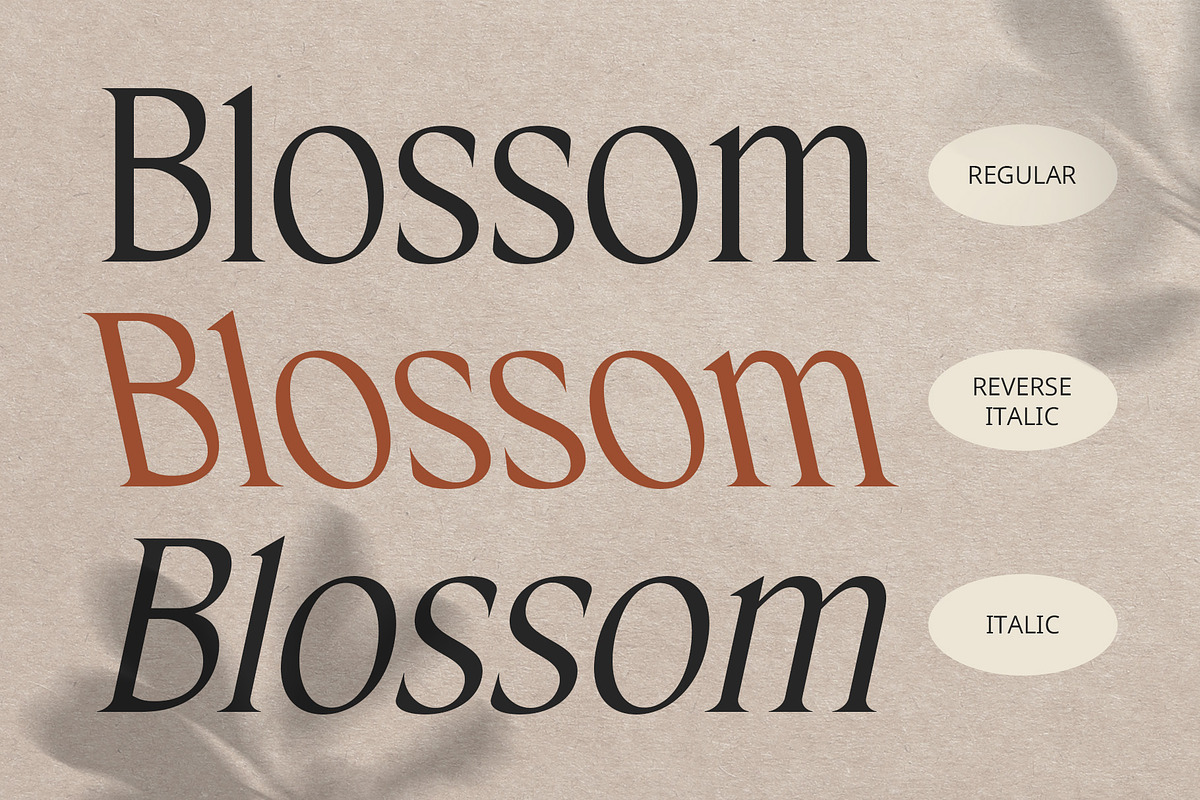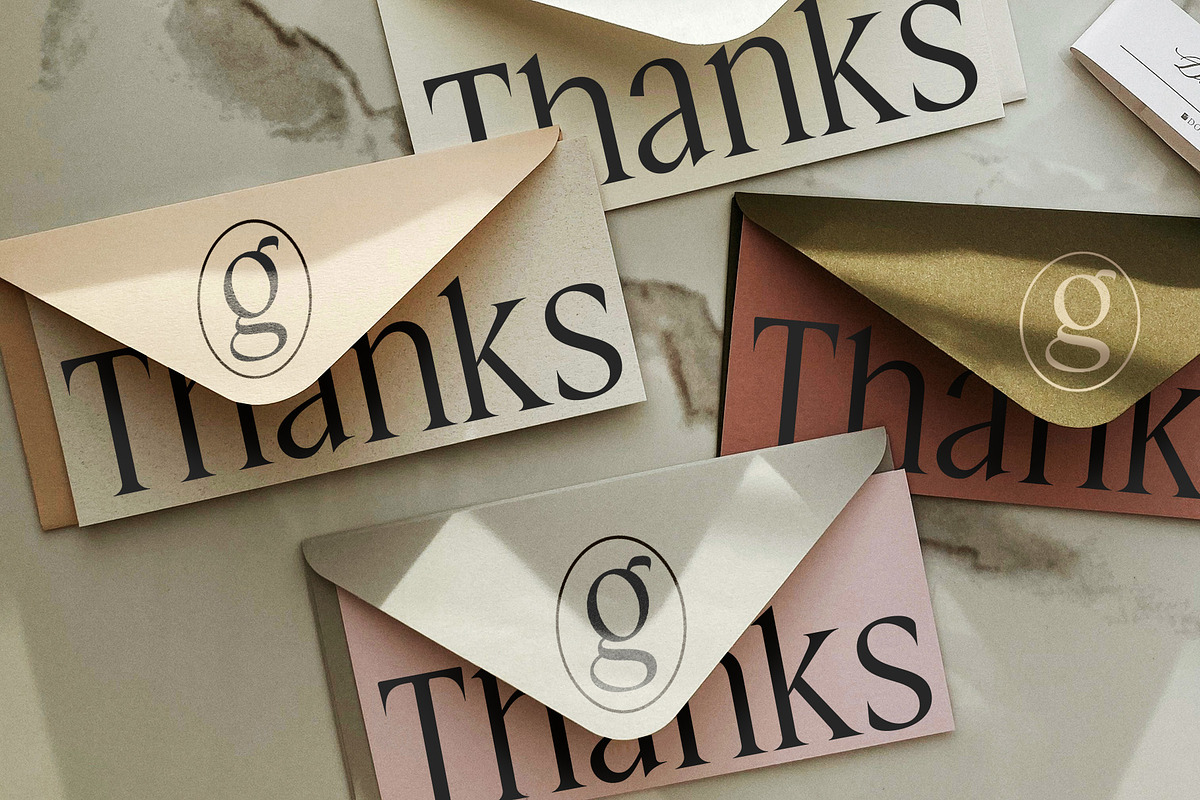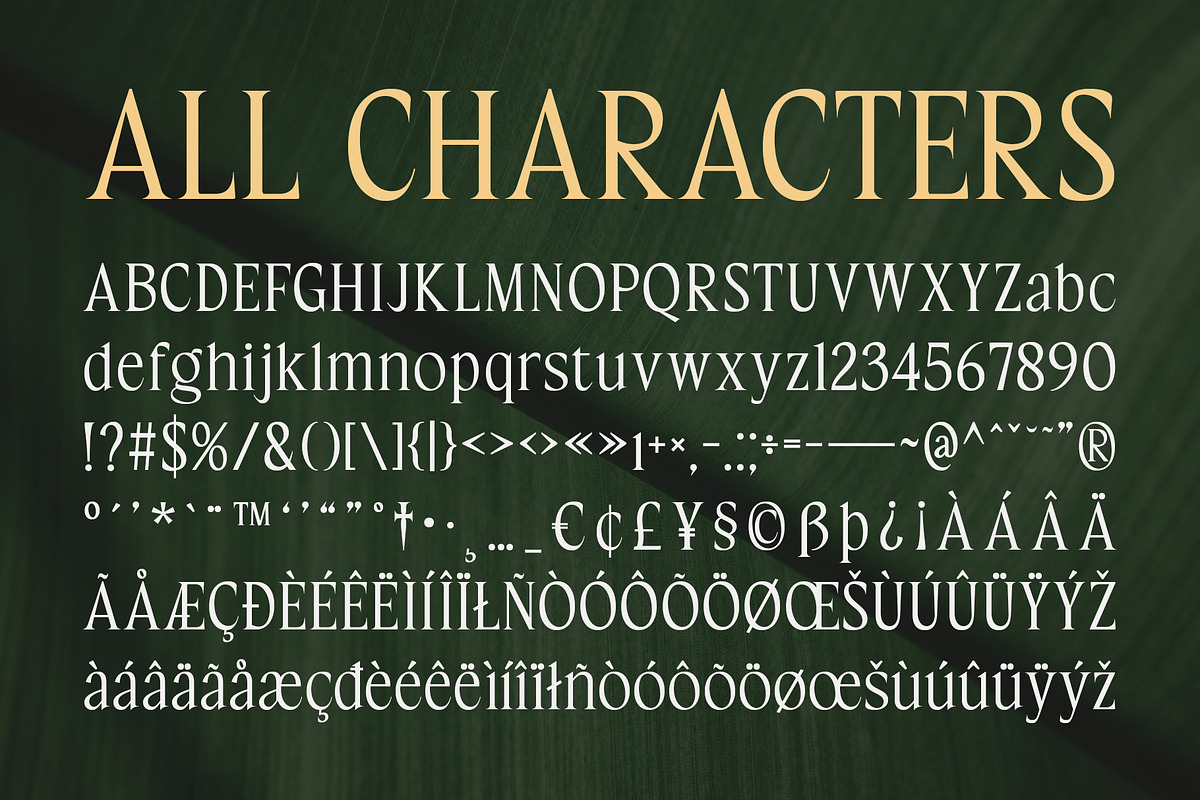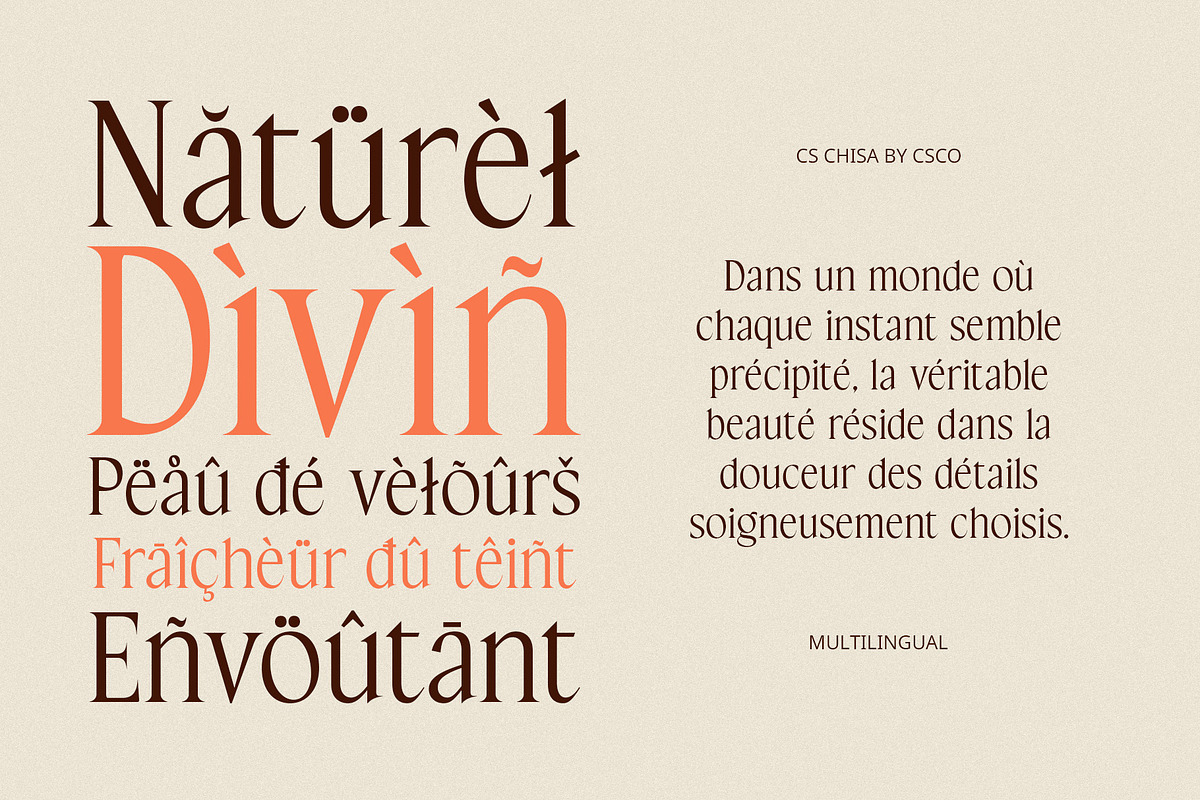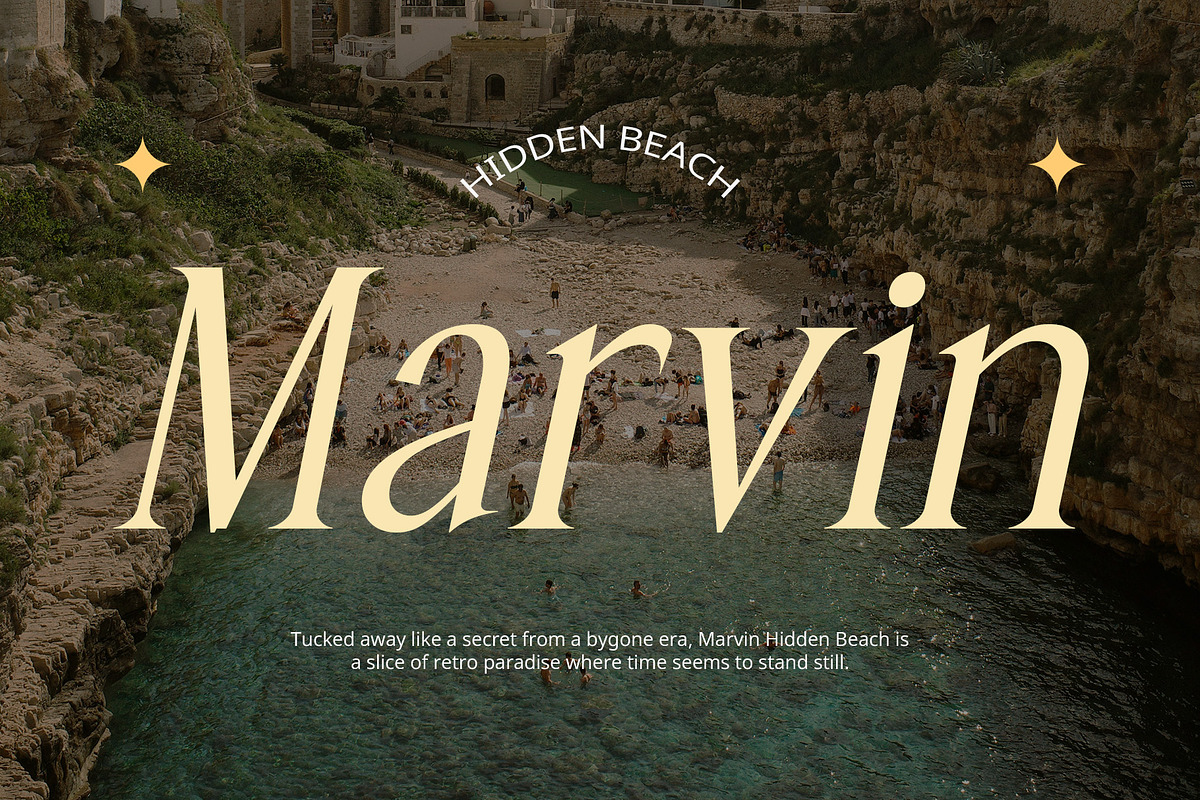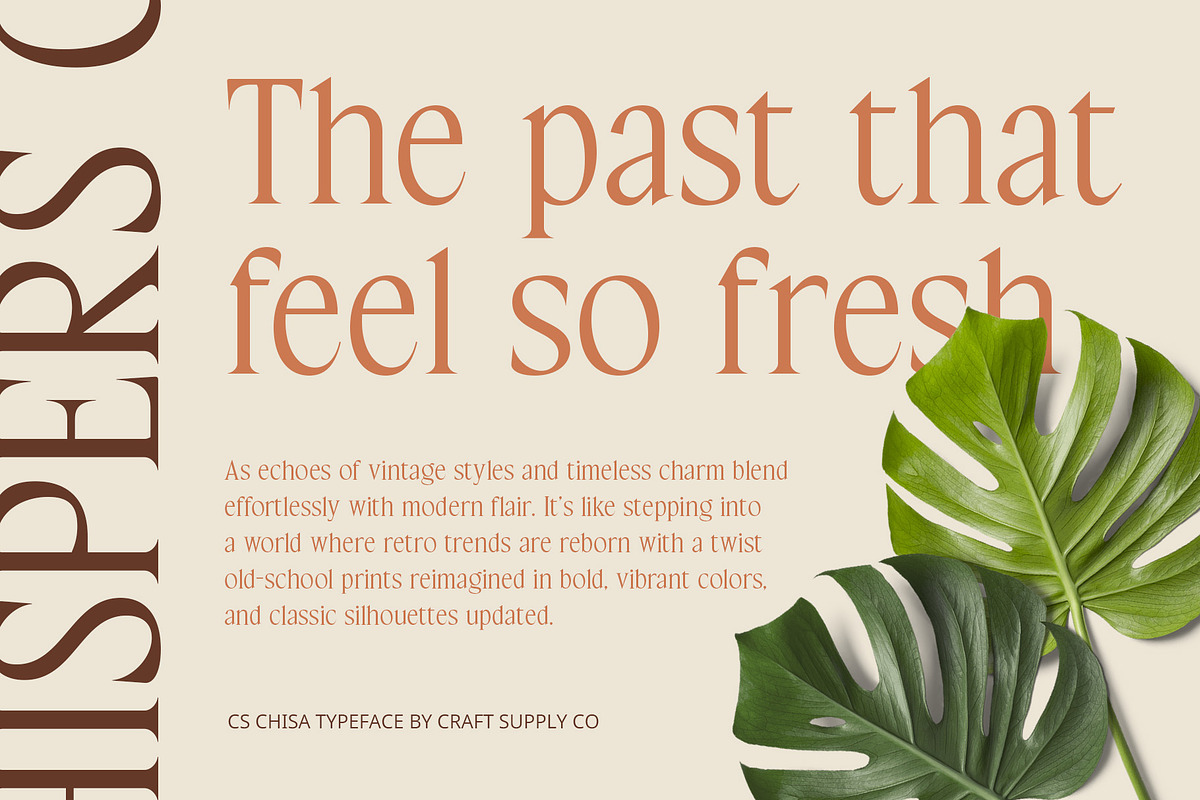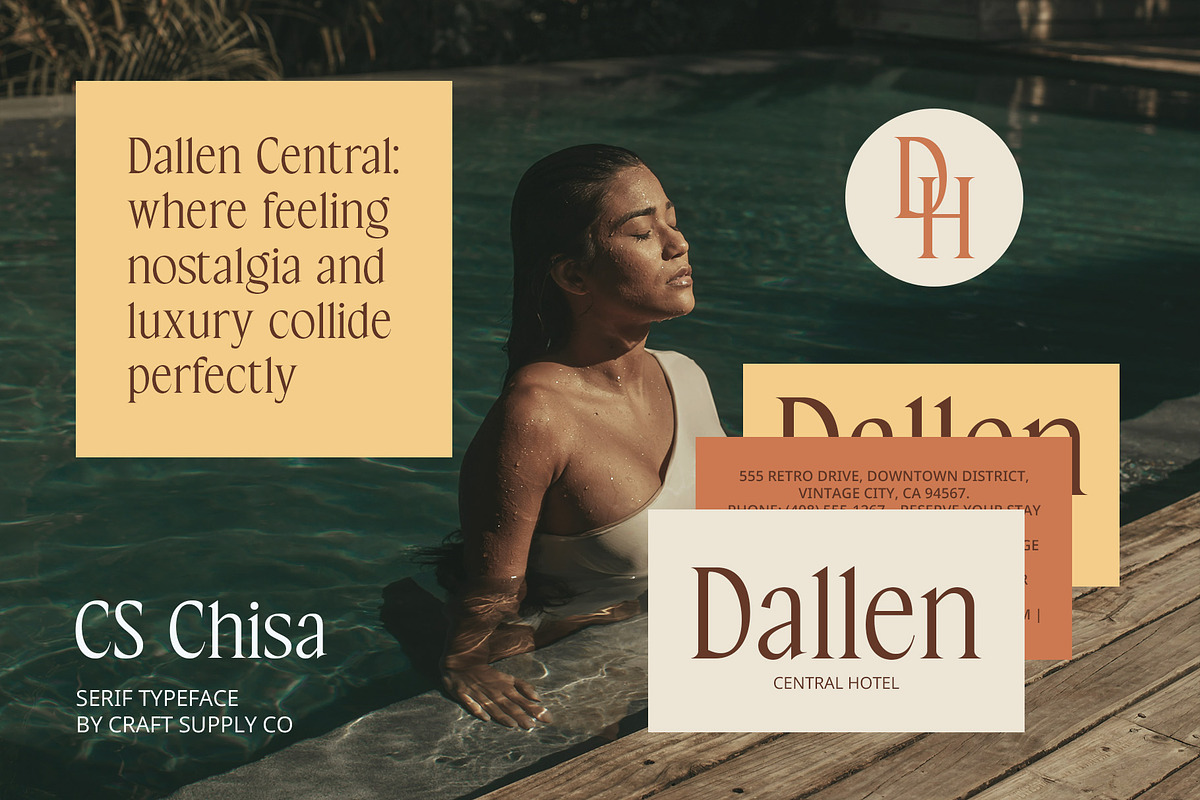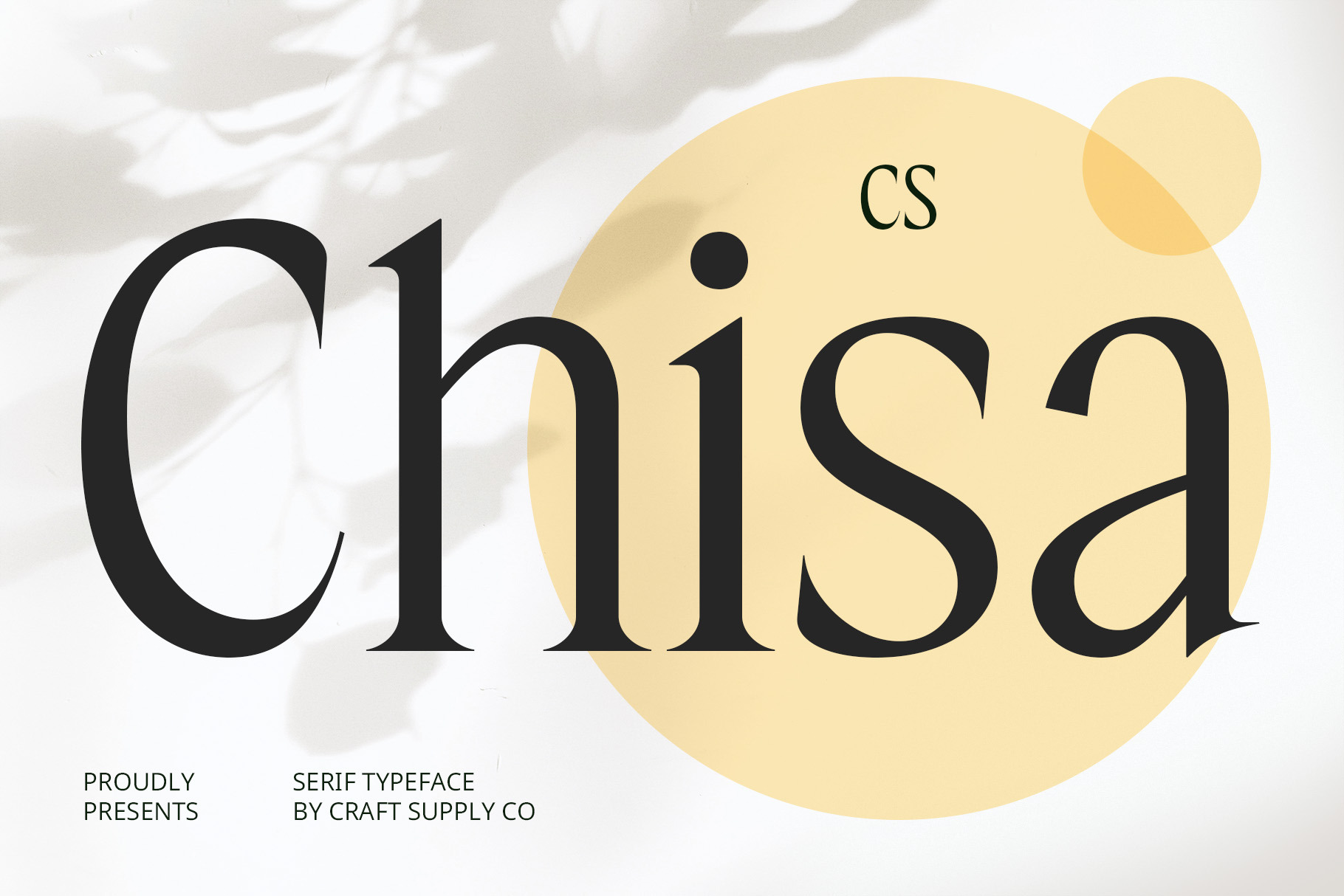
CS Chisa – Elegant Font
CS Chisa Font: Elegant Serif Typography
Timeless Elegance and Sophistication CS Chisa is a modern serif font that effortlessly combines classic design with contemporary minimalism. Its long, refined serifs extend gracefully, adding a touch of elegance and sophistication. The clean lines and well-defined letterforms give the font a sophisticated yet understated feel, making it perfect for designs that demand a refined, high-end aesthetic.
Minimalist Design with Classic Charm The minimalist approach of CS Chisa highlights simplicity without sacrificing its inherent charm. Its slim, well-structured letterforms exude a sense of grace and precision, offering a modern twist on traditional serif design. This combination of elements creates a timeless appearance that remains fresh and relevant, ideal for a range of luxury and professional applications.
Ideal for Luxury Branding and Editorial Design CS Chisa is the perfect choice for luxury branding, fashion editorial projects, and any design that requires a high level of sophistication. Its elegant vibe conveys a sense of refinement, making it an excellent choice for high-end product branding, upscale websites, exclusive invitations, or prestigious publications.
Refined Yet Accessible While CS Chisa exudes class, its minimalist structure ensures that the font remains versatile and approachable. The extended serifs provide a delicate yet strong presence, allowing it to stand out without overwhelming the design.